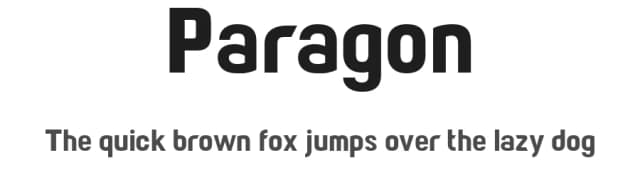
About Massa Font
Massa is a bold sans-serif typeface designed by Tino Mendes, bringing straightforward geometric construction to everyday typographic needs. With 169 glyphs and comprehensive support for 202+ Latin-based languages, this no-frills font prioritizes legibility and confident communication over decorative flourishes. Its substantial weight makes it particularly effective for headlines in design portfolios, posters for local event promotion, product packaging labels, and social media graphics where impact must cut through visual noise.
Working designers reach for Massa when they need a dependable workhorse font that commands attention without unnecessary ornamentation. Banner designs for Etsy shop storefronts, website headers for startup landing pages, vinyl decals for custom signage, and print merchandise mockups all benefit from its grounded, confident presence. The font's appeal lies in its functional geometry and direct approach to letterform design, avoiding any pretense or complexity.
Massa Specifications
| Font Family | Massa |
| Full Name | Massa Bold |
| Glyph Count | 169 glyphs |
| Designer | Tino Mendes |
Massa supports 202 languages.
Massa Font is a versatile sans-serif font that works for both headings and body text. Pair it with a contrasting serif or slab serif font to add visual interest and a clear distinction between titles and body copy.
Massa Font
by Tino Mendes